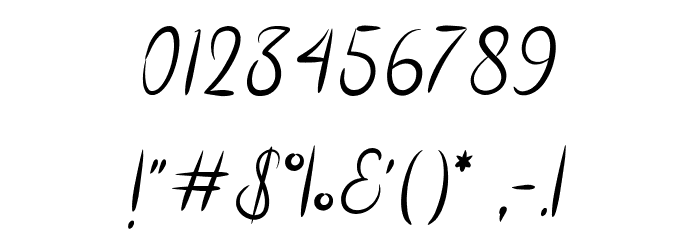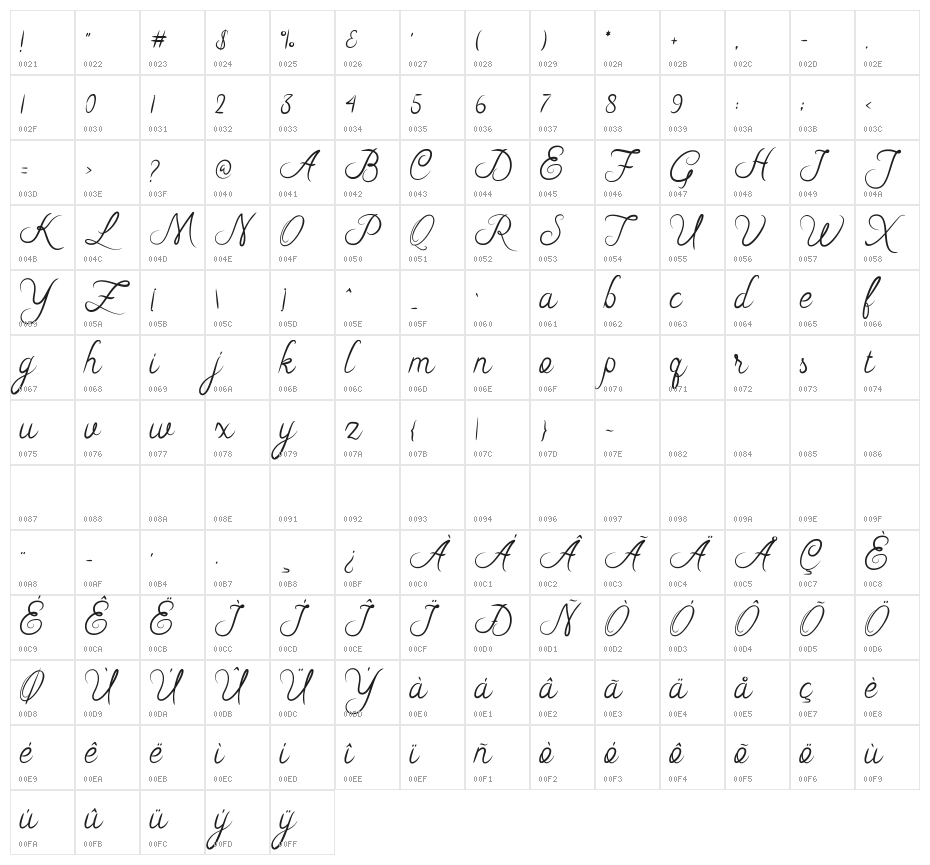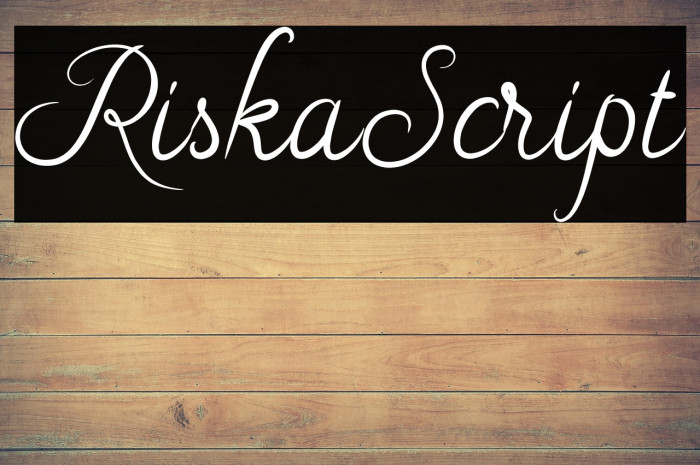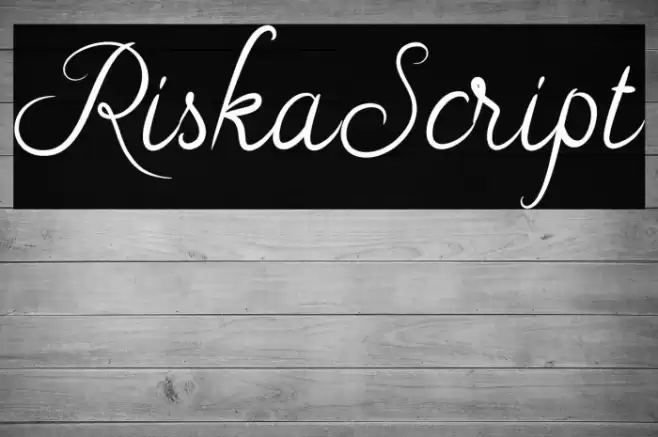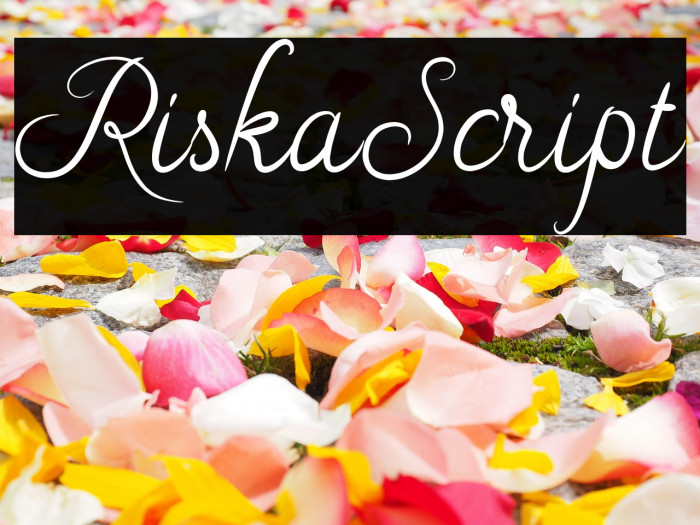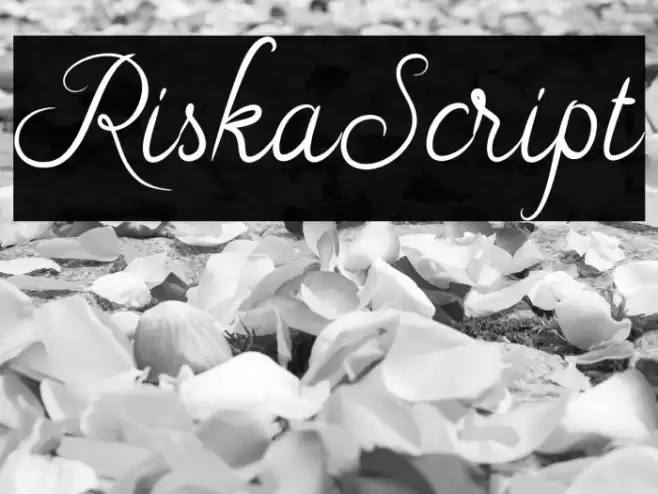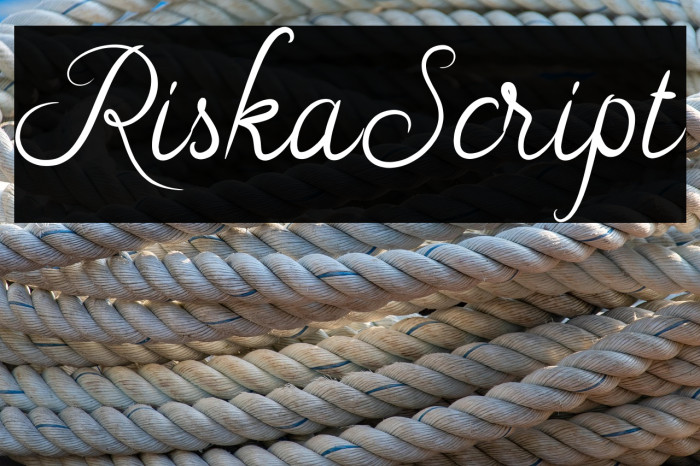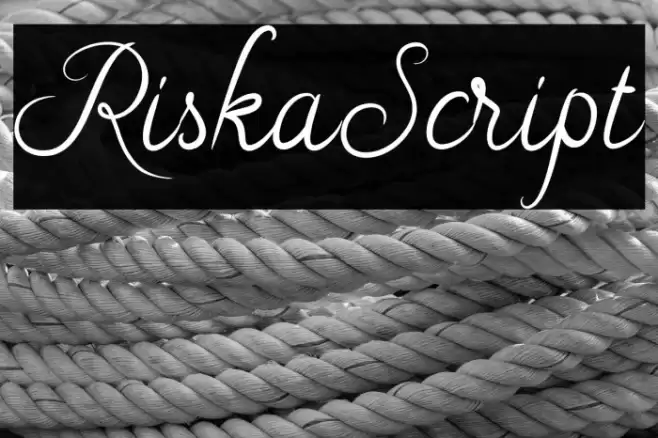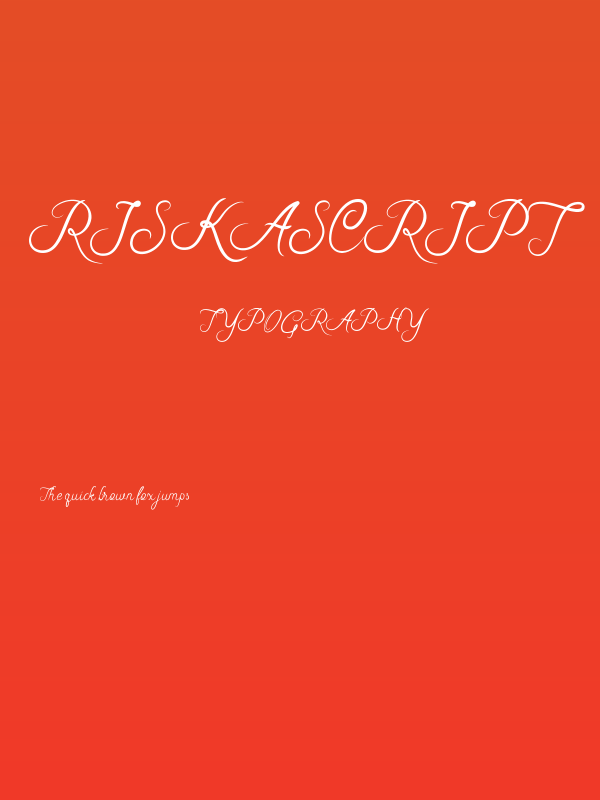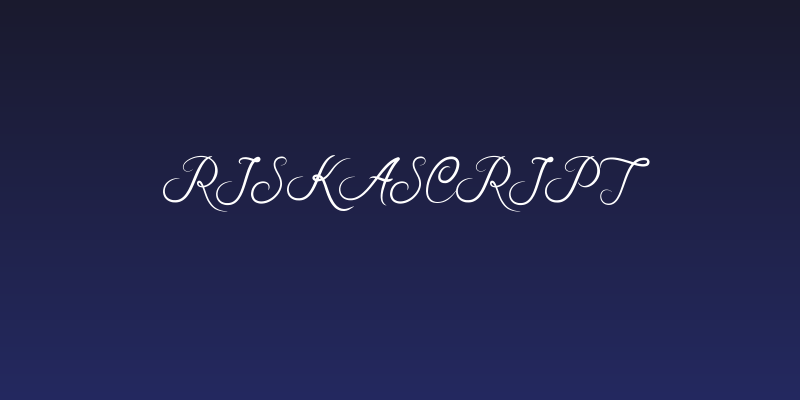
RiskaScript Font
RiskaScript Description
This elegant script font features a flowing, cursive style with delicate, looping strokes that convey a sense of sophistication and grace. The uppercase letters are characterized by their sweeping curves and decorative flourishes, while the lowercase letters maintain a consistent, fluid motion that enhances readability. The numerals and special characters are designed with the same attention to detail, ensuring a cohesive appearance across all text elements. This font exudes a classic charm, making it ideal for projects that require a touch of elegance and refinement.
| Proposed Projects | Ideal for wedding invitations, elegant branding, greeting cards, and upscale packaging. |